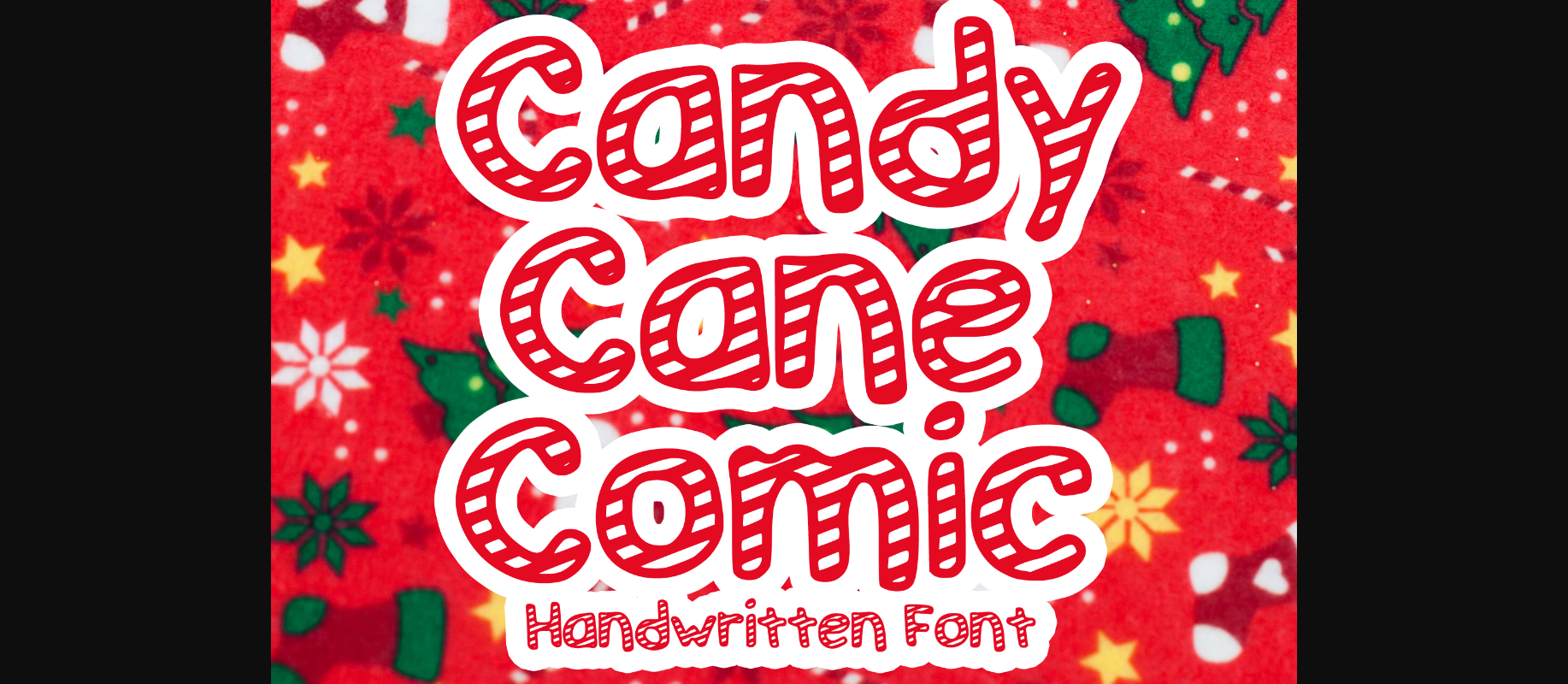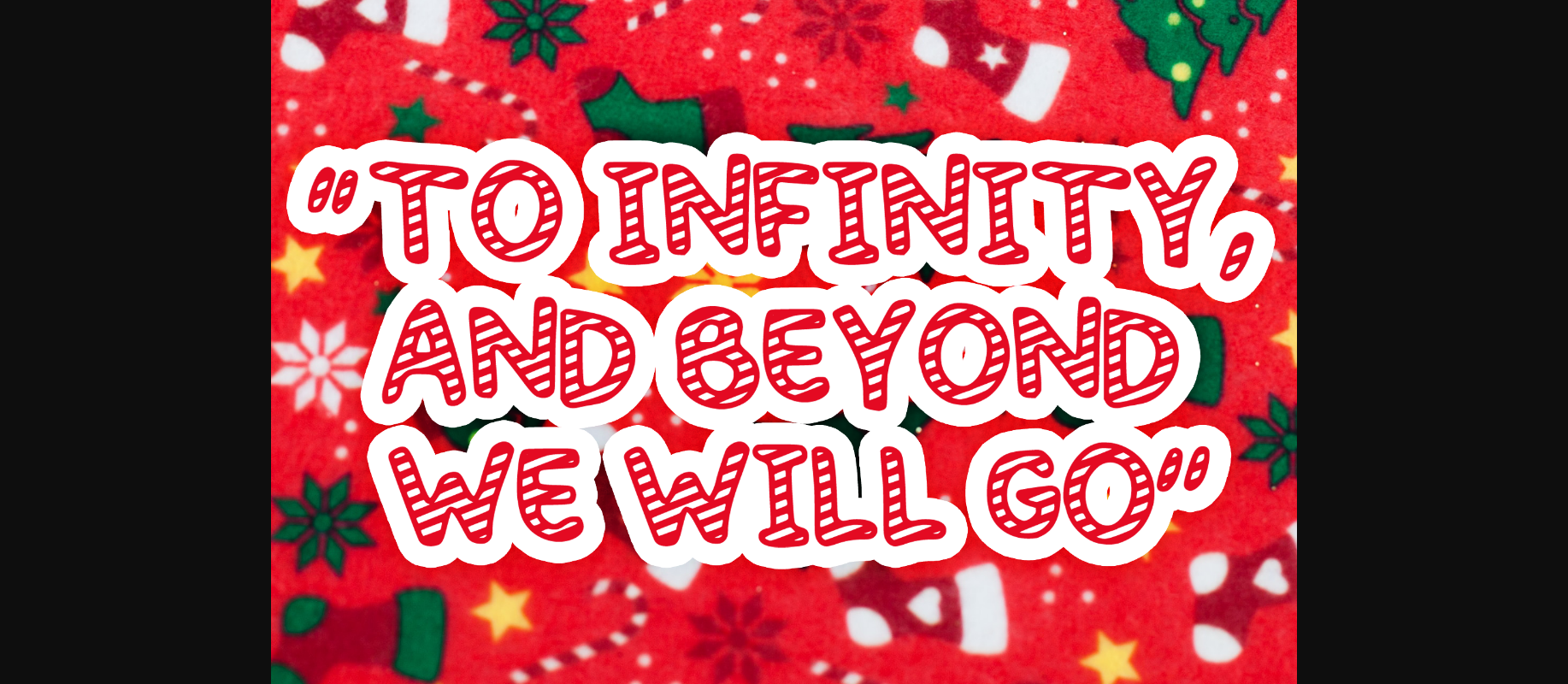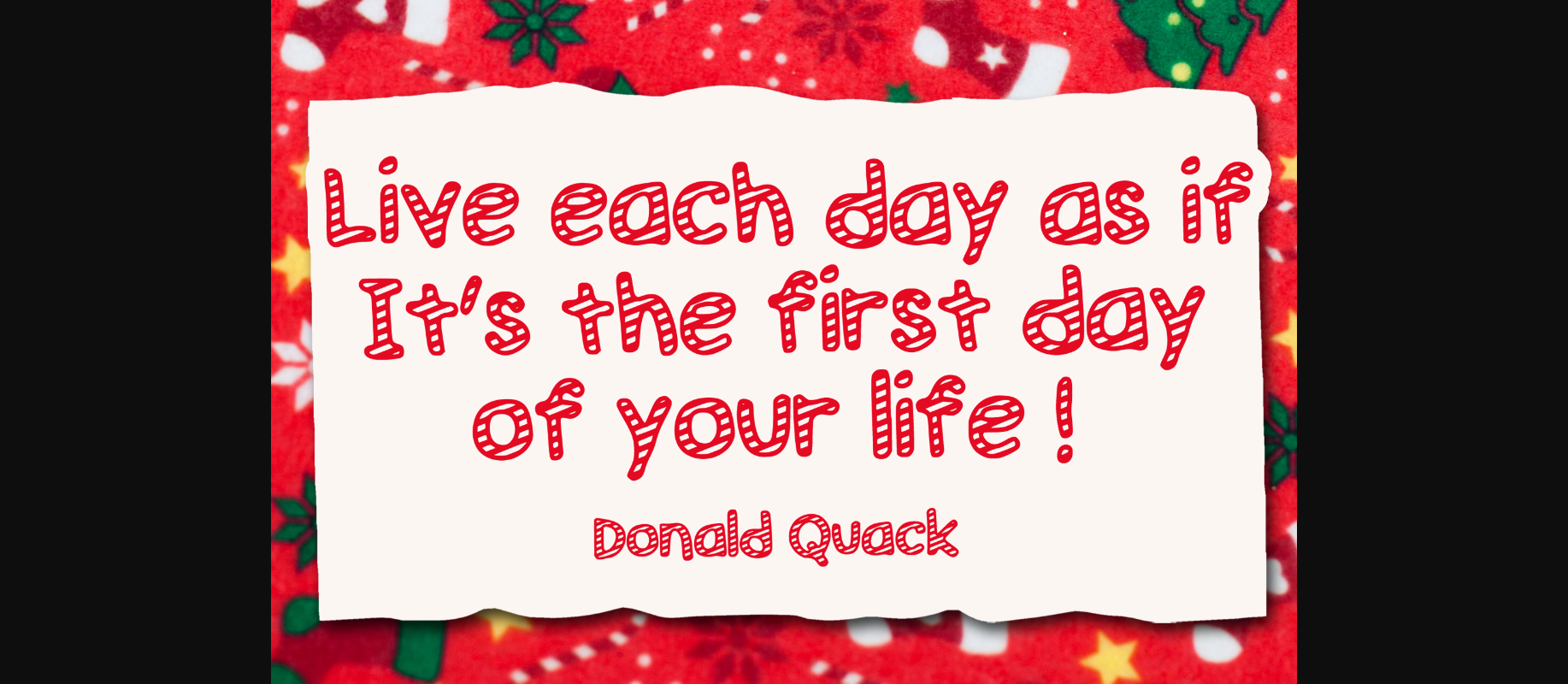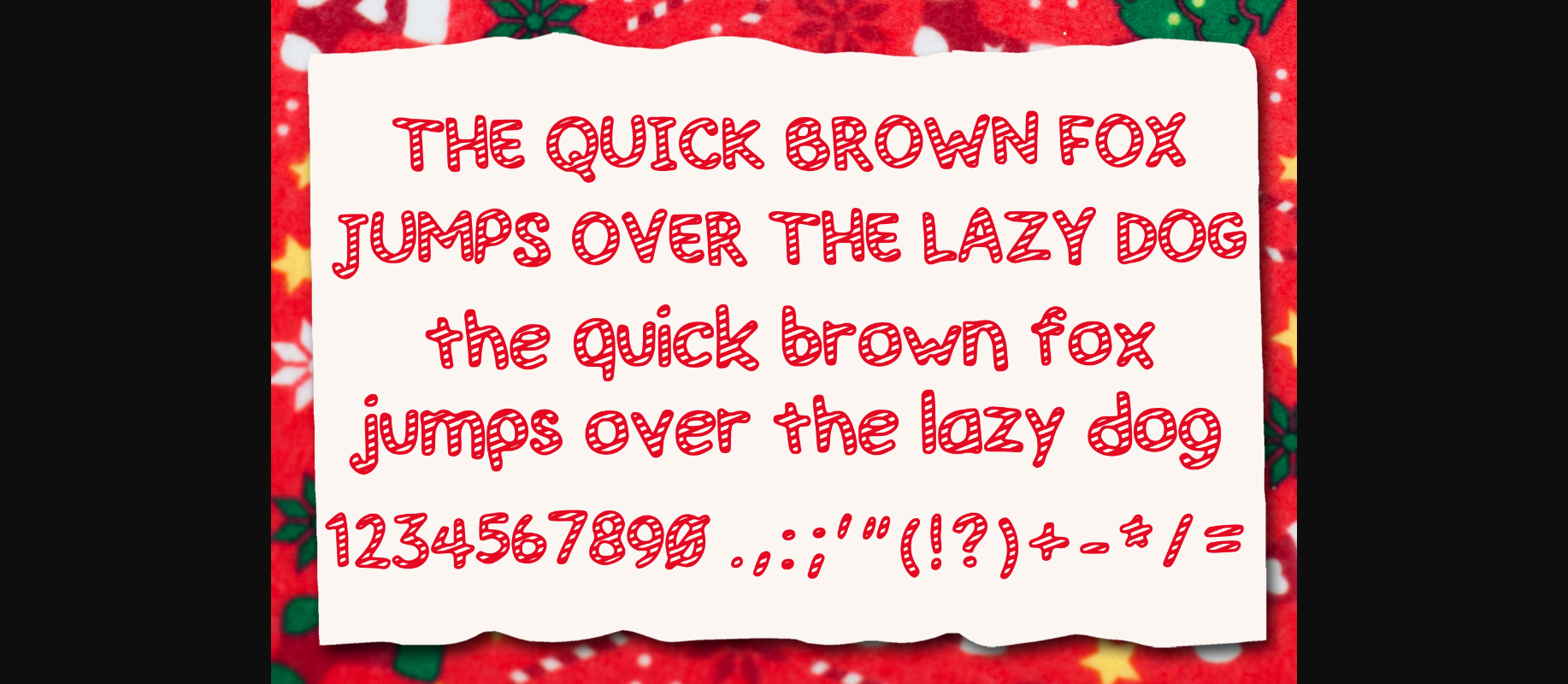
Candy Cane Comic Font
About Candy Cane Comic Font
Candy Cane Comic is a festive Christmas font. You can use it for anything ranging from t-shirts, kids’ book designs, and greeting cards to stickers and posters, or anything that needs a casual touch. Fall in love with its incredibly versatile style, and use it to create lovely designs!